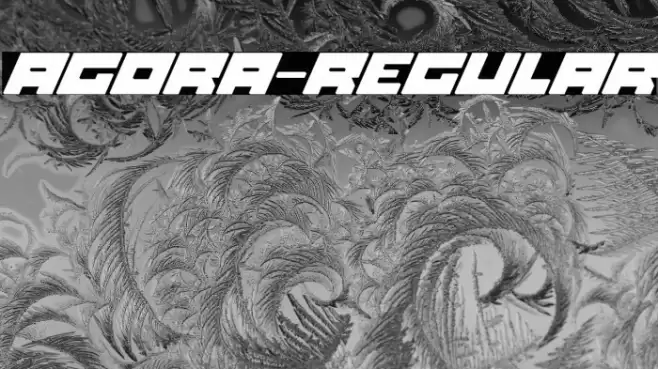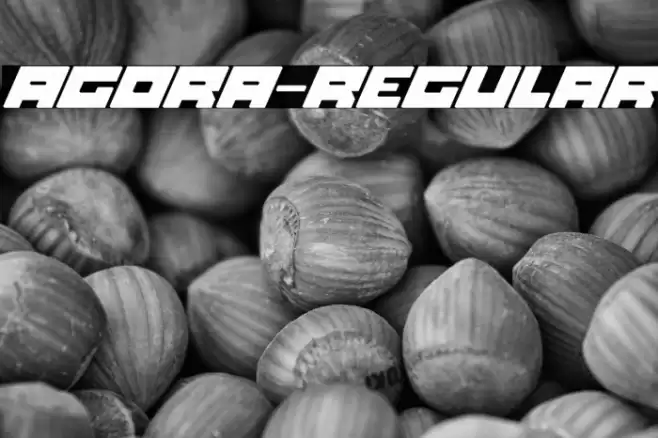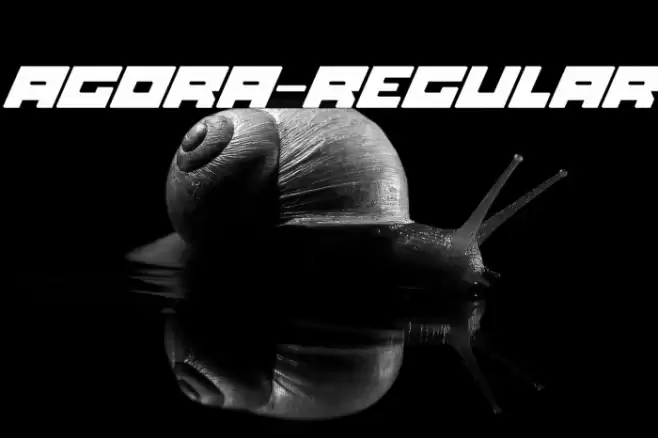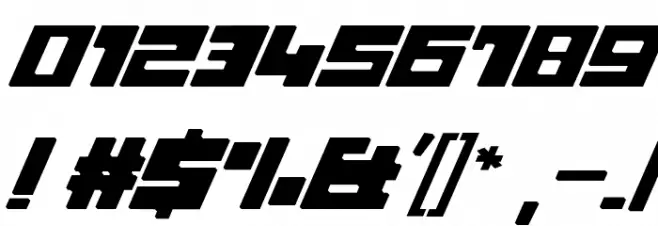
Agora-Regular Font
Agora-Regular Description
This font features a bold, angular design with a futuristic flair. The characters are sharply defined with a strong geometric influence, creating a sense of movement and speed. The uppercase letters are particularly striking, with a blocky, robust appearance that commands attention. The lowercase letters maintain the same angular style, ensuring consistency throughout the typeface. Numbers and special characters are equally bold and dynamic, making them suitable for impactful displays. The overall aesthetic is modern and assertive, ideal for projects that require a strong visual presence.
A bold, angular font with a futuristic and dynamic design from Regular fonts.
- Proposed Projects: Ideal for branding, sports team logos, video game titles, and futuristic-themed designs.